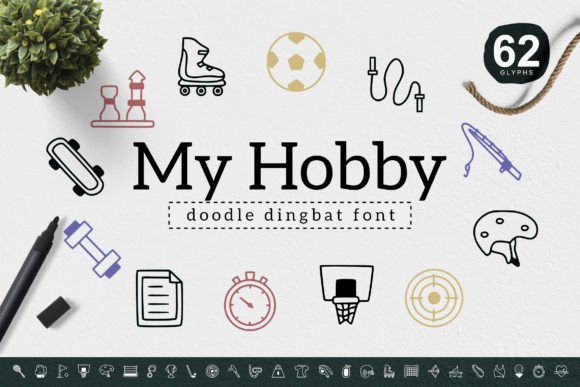
Introducing My Hobby Font - A Whimsical and Creative Dingbat Paradise for Your Designs!
Welcome to the world of My Hobby Font, a delightful dingbat font family that fuses charm, playfulness, and limitless possibilities. Step into a whimsical realm where imagination meets expression, and embark on a creative journey that will revolutionize your design projects.
My Hobby Font is not just a collection of symbols; it's a gateway to a world of fun, creativity, and boundless imagination. With its enchanting dingbats, this font family ignites a spark of inspiration in every project, transforming ordinary designs into captivating masterpieces.
Let your creativity soar as you explore the endless possibilities of My Hobby Font. Whether you're designing stickers, posters, t-shirts, greeting cards, or apparel graphics, this font family will elevate your designs to new heights. Its versatility knows no bounds, making it the perfect choice for a multitude of projects, both personal and professional.
With My Hobby Font, there's no limit to your creative expression. Unleash your imagination and watch as your designs come to life with a touch of whimsy and magic. Indulge in the playful nature of this font family and discover the joy of creating designs that resonate with your audience.
Bring a smile to your audience's faces with My Hobby Font. Its charming dingbats add a touch of lightheartedness and playfulness to any design, ensuring that your messages and creations leave a lasting impression.
Embrace the magic of My Hobby Font and unlock a world of endless creative possibilities. Experience the joy of crafting designs that radiate charm, individuality, and a touch of the extraordinary. Let your imagination run wild and create designs that will captivate and inspire like never before.